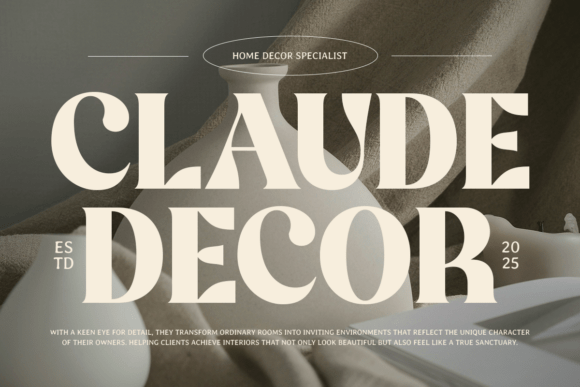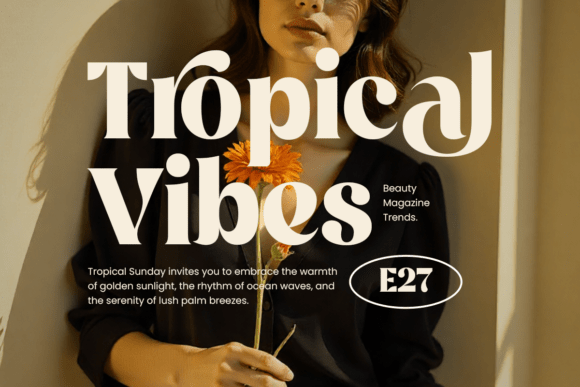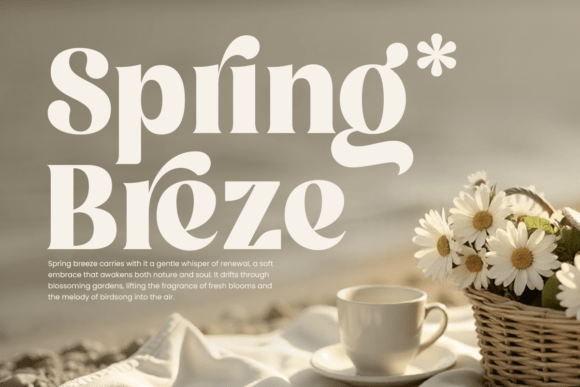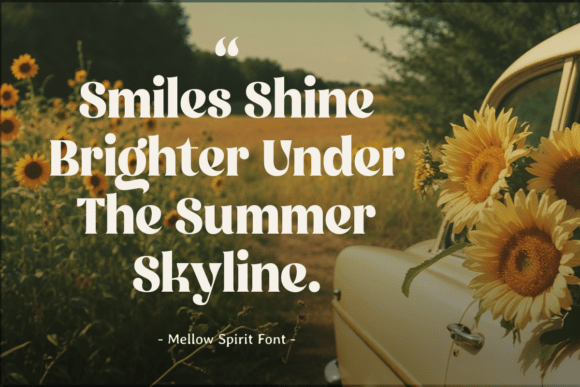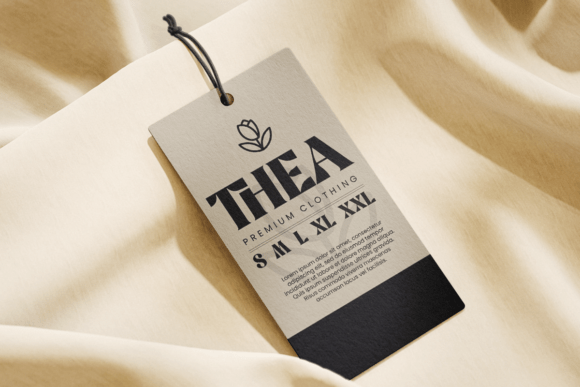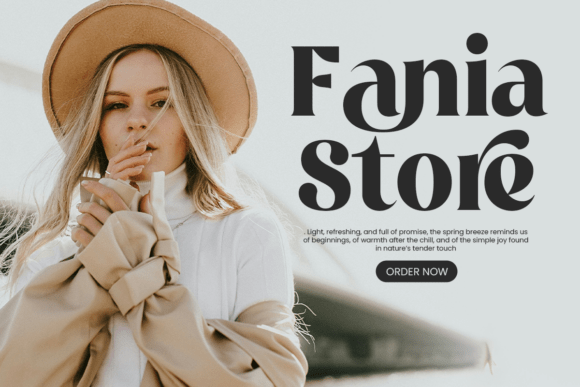
Introduction to Mellow Spirit Font
Mellow Spirit is a retro-inspired display font designed to spark creativity and fun.
With its groovy letterforms and modern flair, this font brings back the warmth of the 70s and 80s while keeping your designs fresh and relevant Ideal for logos, merchandise, event posters, and lifestyle branding, Mellow Spirit adds a nostalgic yet upbeat vibe that makes your work stand out.
Key Features of Mellow Spirit Font
Mellow Spirit Font offers exceptional quality and versatility, making it a valuable addition to your design toolkit. Whether you’re creating for personal projects or commercial use, Mellow Spirit Font delivers professional results.